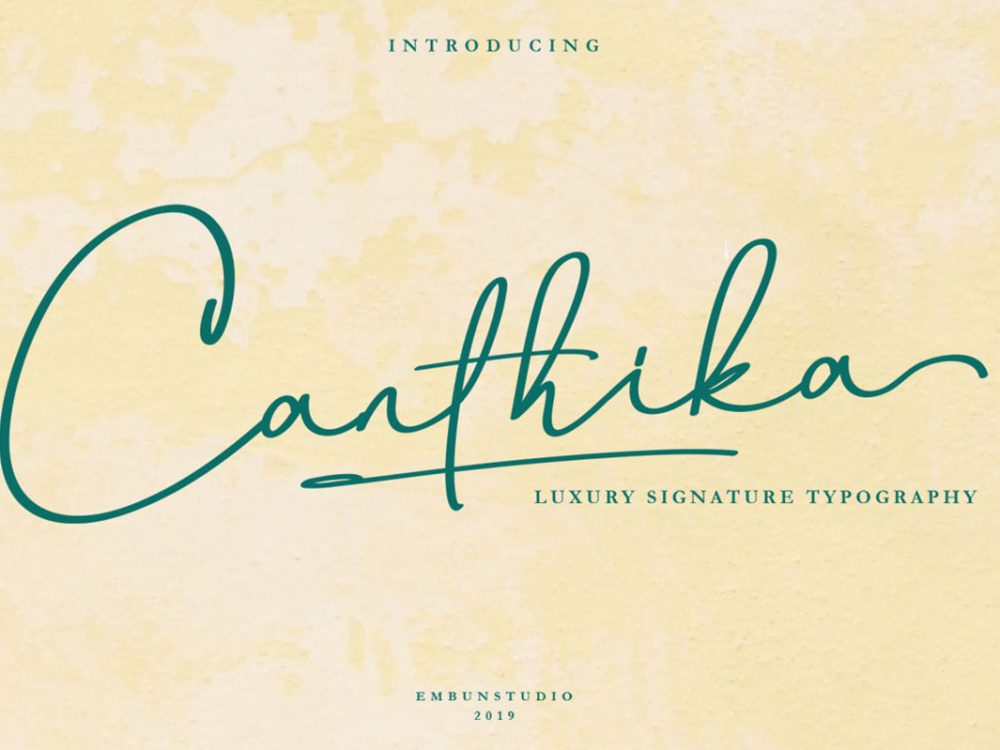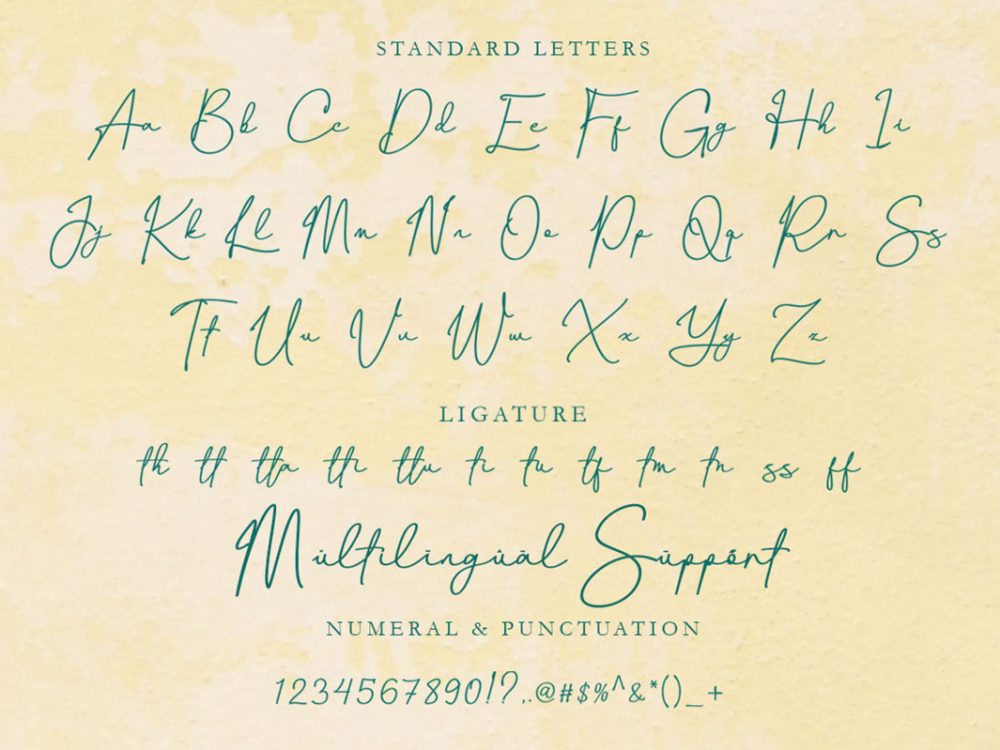
Canthika Stylish Signature Font
Canthika Stylish Signature Font is a beautiful stylish handwritten font that stands out from other fonts with its soft elegant lines. This font is perfect for a variety of design projects that require a handwritten font. These can be invitations, cards, posters, flyers, prints, and more. If you wish to use it for commercial work please buy the full version.